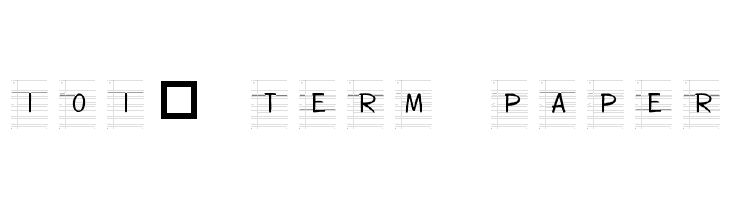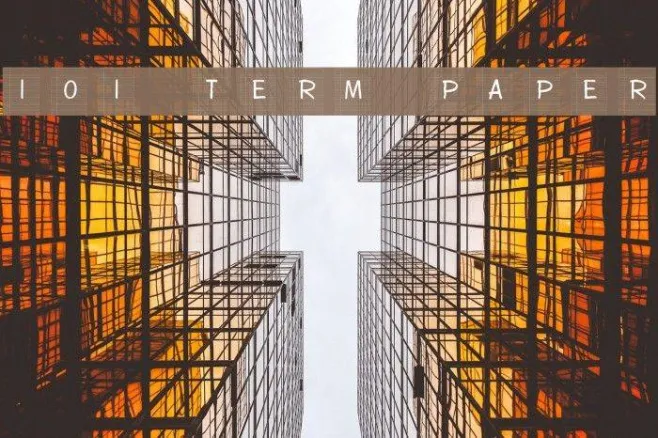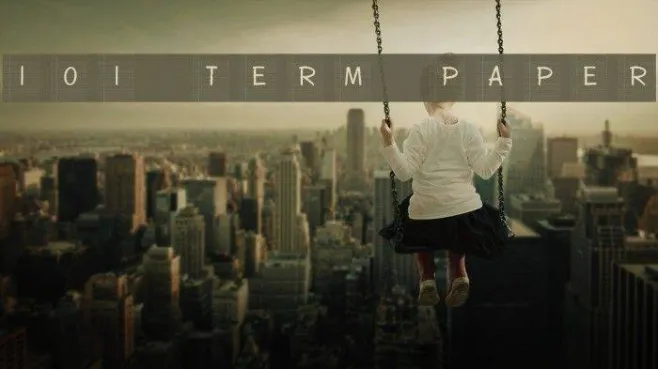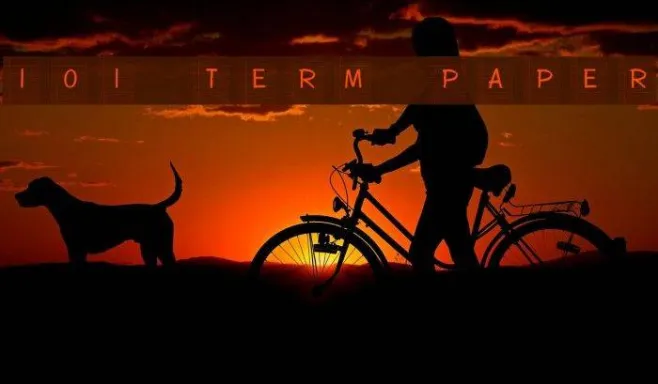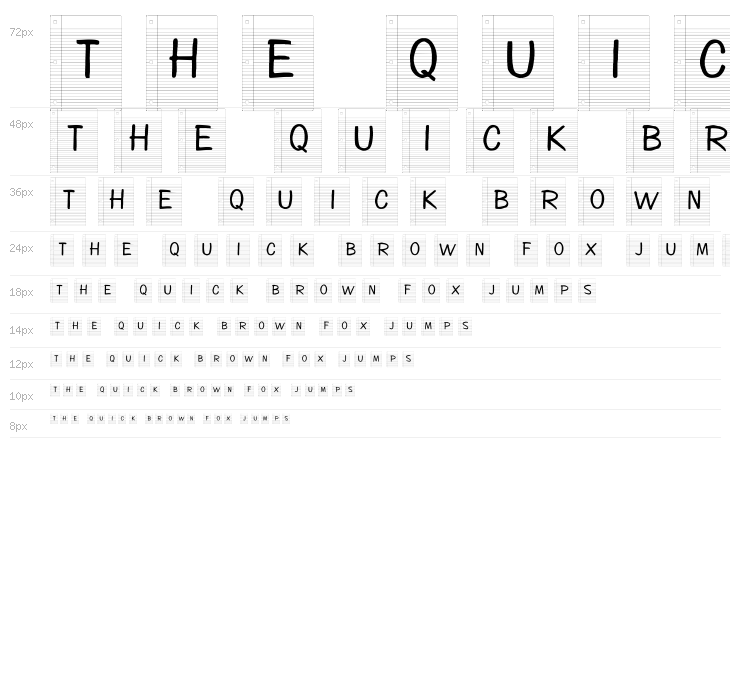
101! Term Paper Font
101! Term Paper Description
This font mimics the appearance of handwriting on lined paper, giving it a casual and approachable feel. The characters are slightly irregular, adding to the handwritten effect, yet they maintain a consistent baseline and height, ensuring readability. The uppercase letters are bold and clear, while the lowercase letters are slightly more playful, with subtle variations in stroke width. Numbers are straightforward and align well with the overall style. The special characters are not displayed, indicating a focus on basic alphanumeric use. This font is ideal for projects that require a personal touch or an educational theme.
| Use Case | Educational materials, personal notes, informal documents. |
| Proposed Projects | Ideal for educational materials, personal notes, or any project needing a handwritten touch. |